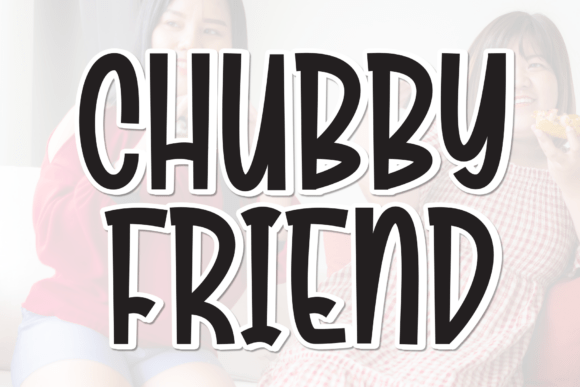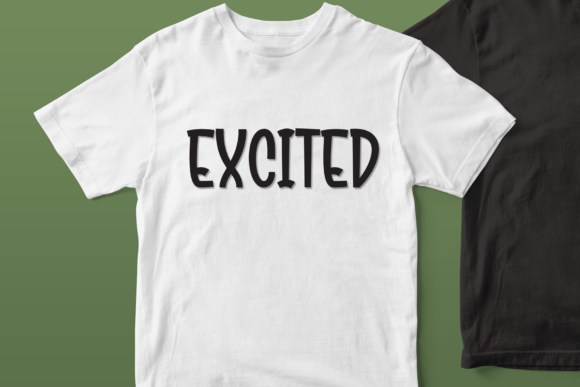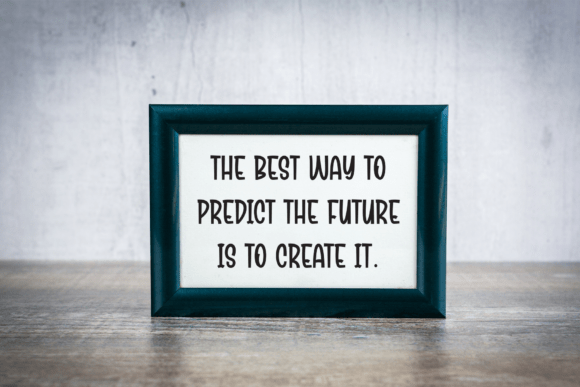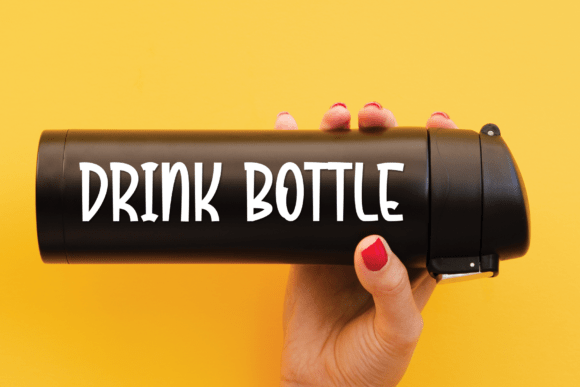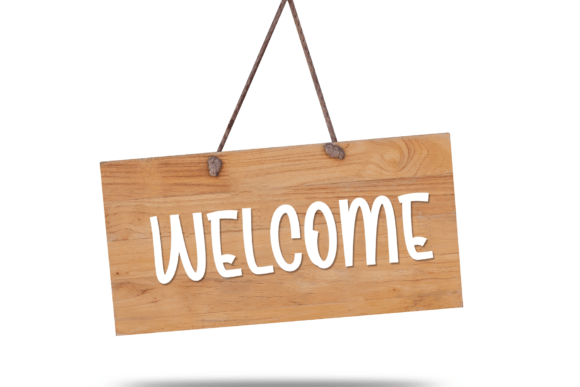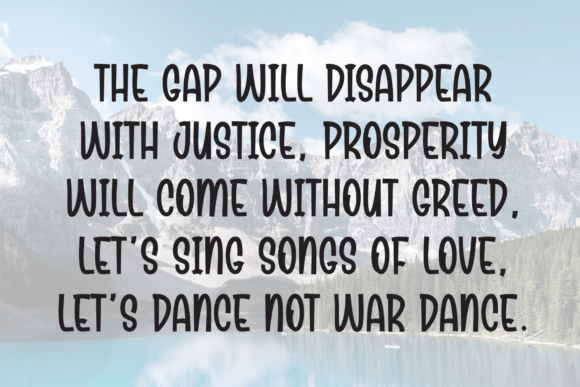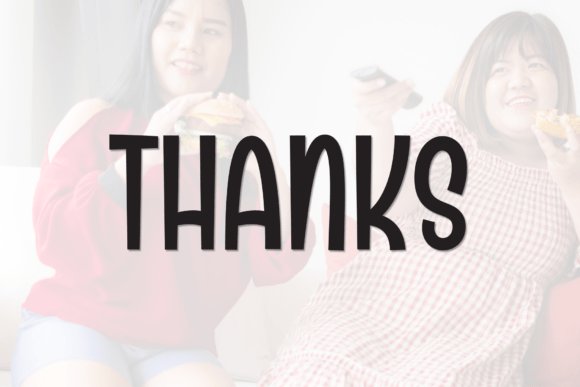
The Ultimate Design Companion: Unlocking the Power of Chubby Friend Font
Have you ever been stuck on a design project, struggling to find the perfect font that captures the essence of your brand’s personality? You know, that moment when you’re sipping coffee, staring at your screen, and suddenly, a burst of creativity hits you – “What if I used a font that felt like a warm hug?” That’s exactly what happens when you discover the Chubby Friend Font.
As the “best friend” of your design toolkit, the Chubby Friend Font is a display powerhouse that radiates positivity and approachability. Its bold, bubbly, and full of heart, making it the perfect choice for projects where you want your text to feel like a friendly, fuzzy blanket. Whether you’re designing for children’s products, pet care services, or snack packaging, this font is a game-changer.
Chubby Friend Font Key Features
- Font Family: Chubby Friend Font is a unique, hand-drawn font designed for fun and playful applications.
- Unique Characteristics: The font features rounded, chunky characters with a playful, hand-drawn feel, making it perfect for children’s books, advertisements, and other creative projects.
Review: Chubby Friend Font
Overall, I was excited to dive into the “Chubby Friend Font” – a playful, handwritten font designed to bring a touch of whimsy to your designs. ✨ One of the things I love about this font is its unique, quirky charm. The subtle imperfections and irregularities give it a hand-drawn feel that’s perfect for adding personality to your projects.
Another strength of this font is its versatility. ✨ I’ve used it in a variety of contexts, from headings to body text, and it always seems to shine. The font is also incredibly easy to read, even at smaller sizes, which is a must for any designer.
- ⚠️ The font may not be suitable for formal or professional projects, as its playful nature can come across as immature.
- ⚠️ Some characters, such as punctuation marks, may not be perfectly legible at small sizes.
- ⚠️ The font’s quirks can also make it difficult to pair with other fonts, as its unique style may clash with more traditional or formal typography.
Overall, I’d say the “Chubby Friend Font” is a fun and creative addition to any designer’s toolkit. While it may have some limitations, its unique charm and versatility make it a great choice for designers looking to add a bit of whimsy to their projects.
The Chubby Friend Font is ideal for creating playful, child-friendly designs, such as:
- Children’s book covers
- Party invitations
- Food labels
Remember to pair the Chubby Friend Font with a clear, easy-to-read font for optimal readability.